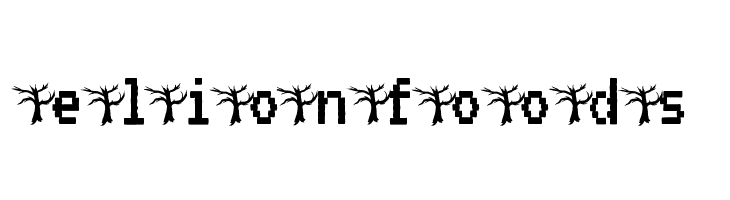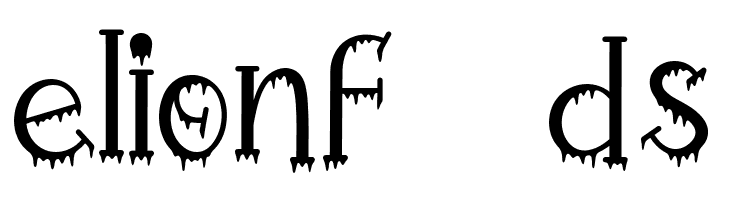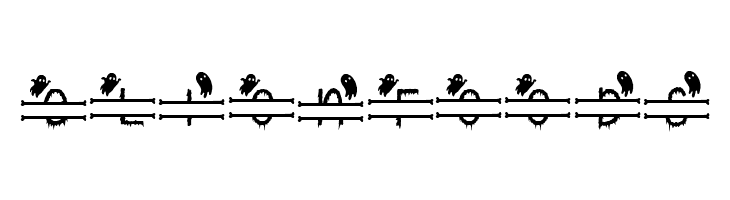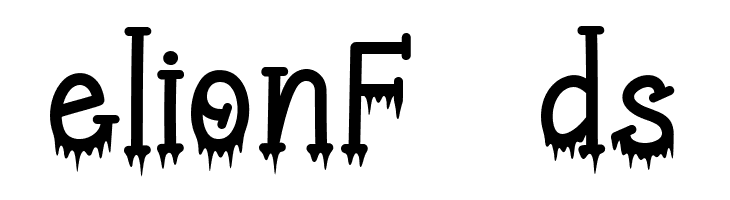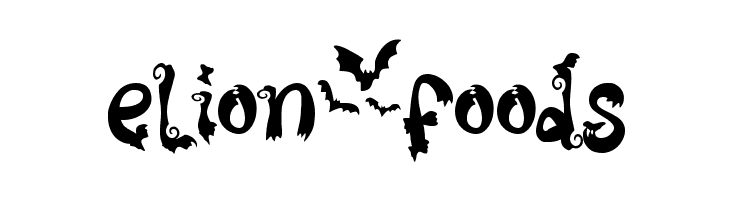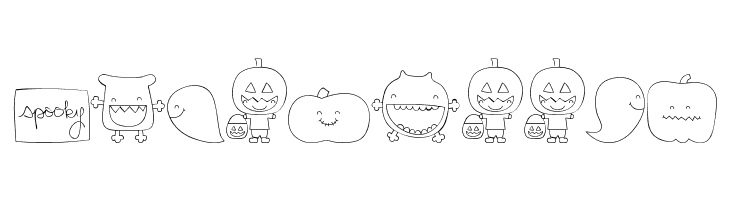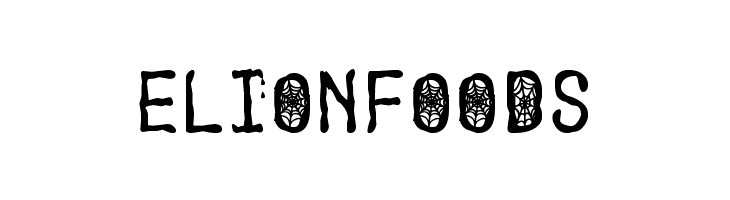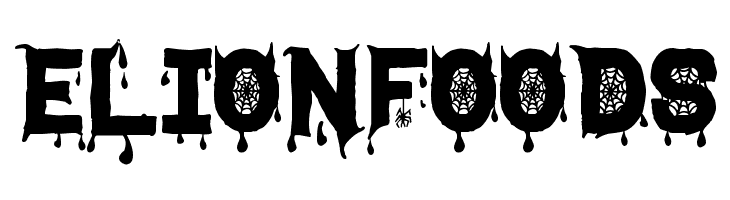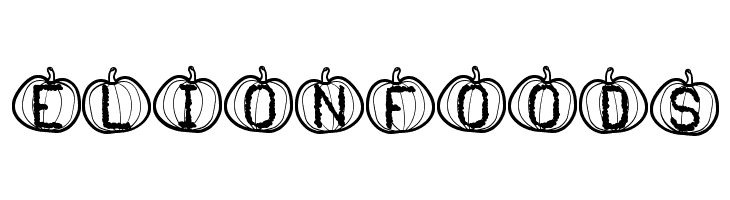
• MTF Sweet Halloween Dings
A playful dingbat font with cute Halloween-themed illustrations.
• Halloween Party St
A spooky, Halloween-themed font with spider web and spider accents.
• Halloween Scare St
A spooky, Halloween-themed font with dripping, cobwebbed characters.
• Pumpkin Halloween St
A playful Halloween-themed font with characters inside pumpkin shapes.
• Halloween Party
• Halloween Rules
A spooky, decorative font with jagged, dripping edges, perfect for Halloween themes.
• Creepy Halloween Monogram
A spooky, decorative font with a Halloween theme, featuring circular saw borders and crow accents.
• Halloween Festival
A spooky, dripping font ideal for Halloween themes.
• Spooky Halloween - Personal Use
A spooky, Halloween-themed decorative font with playful, eerie elements.
• Halloween Island - Personal use
A playful, spooky font with quirky, decorative elements ideal for Halloween themes.